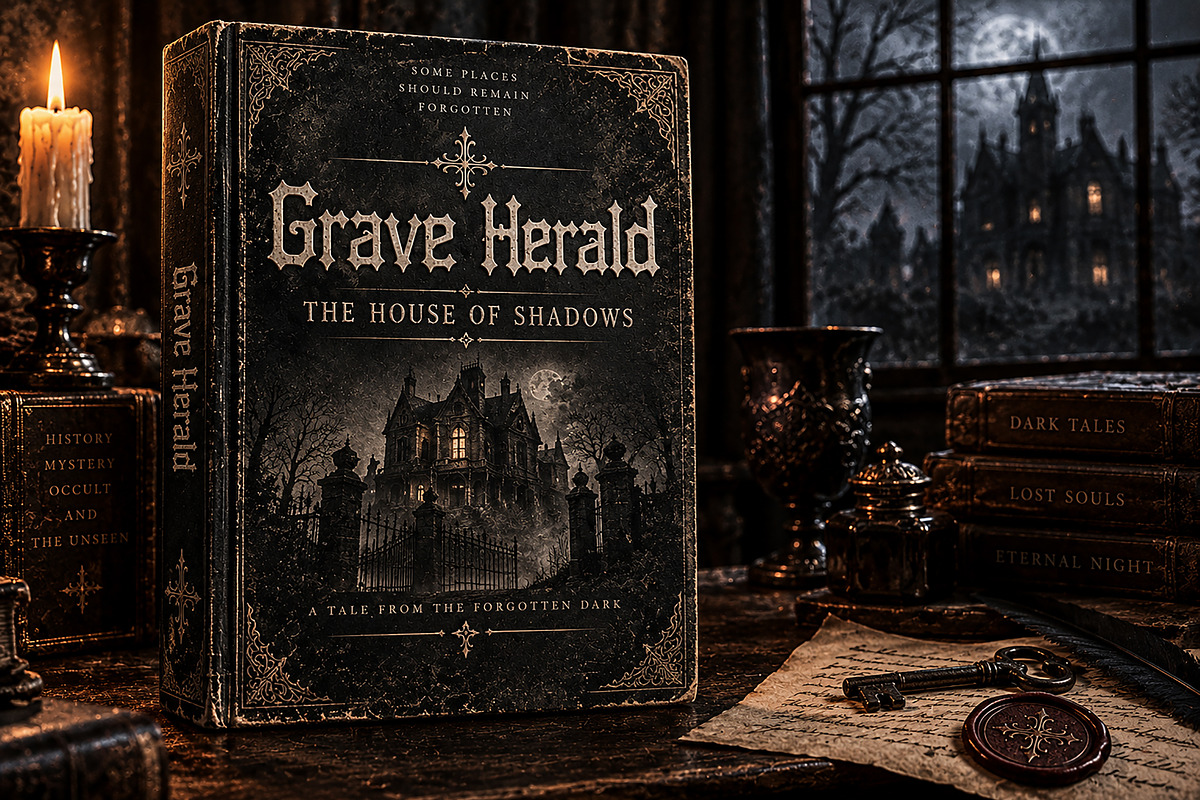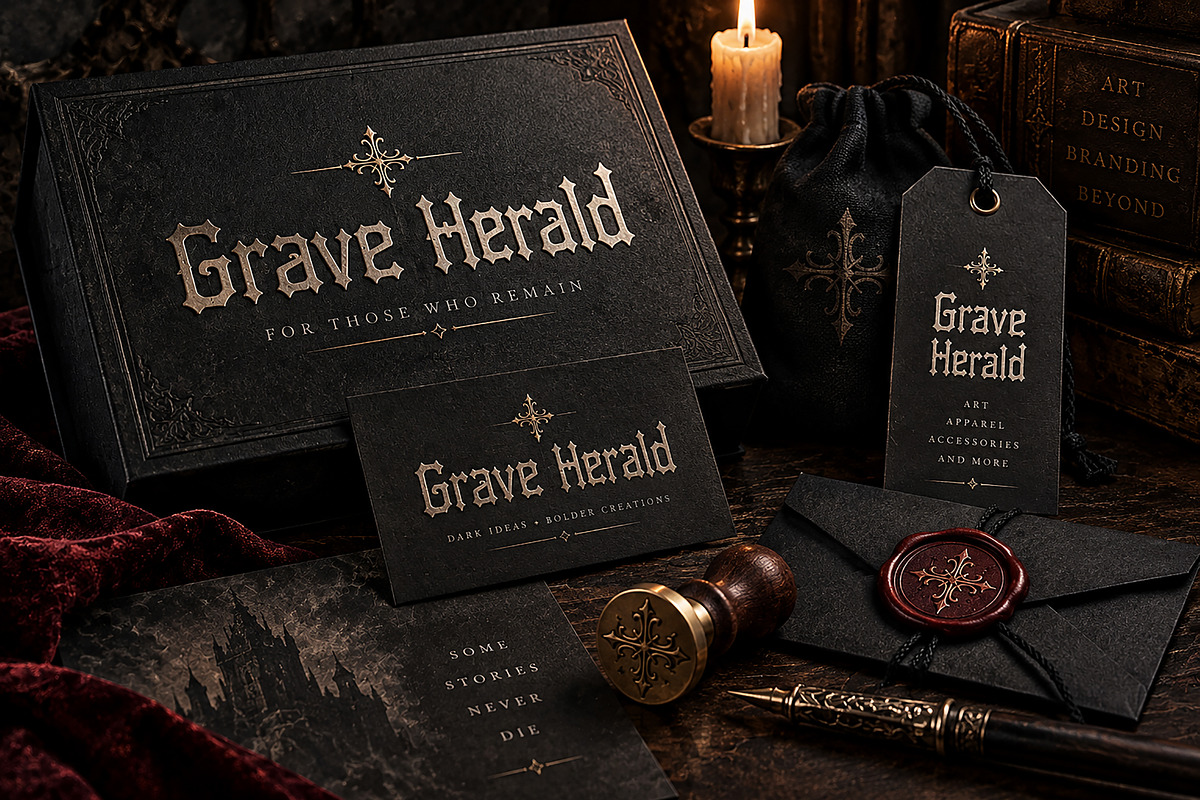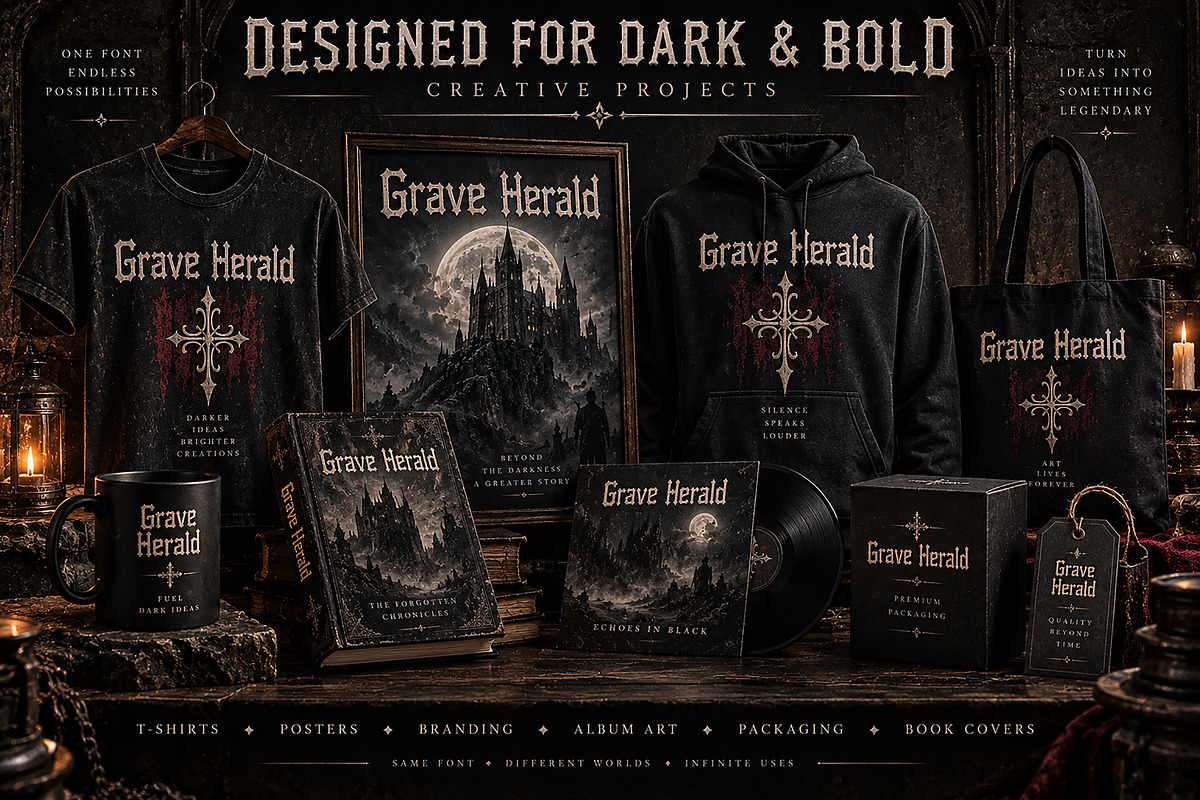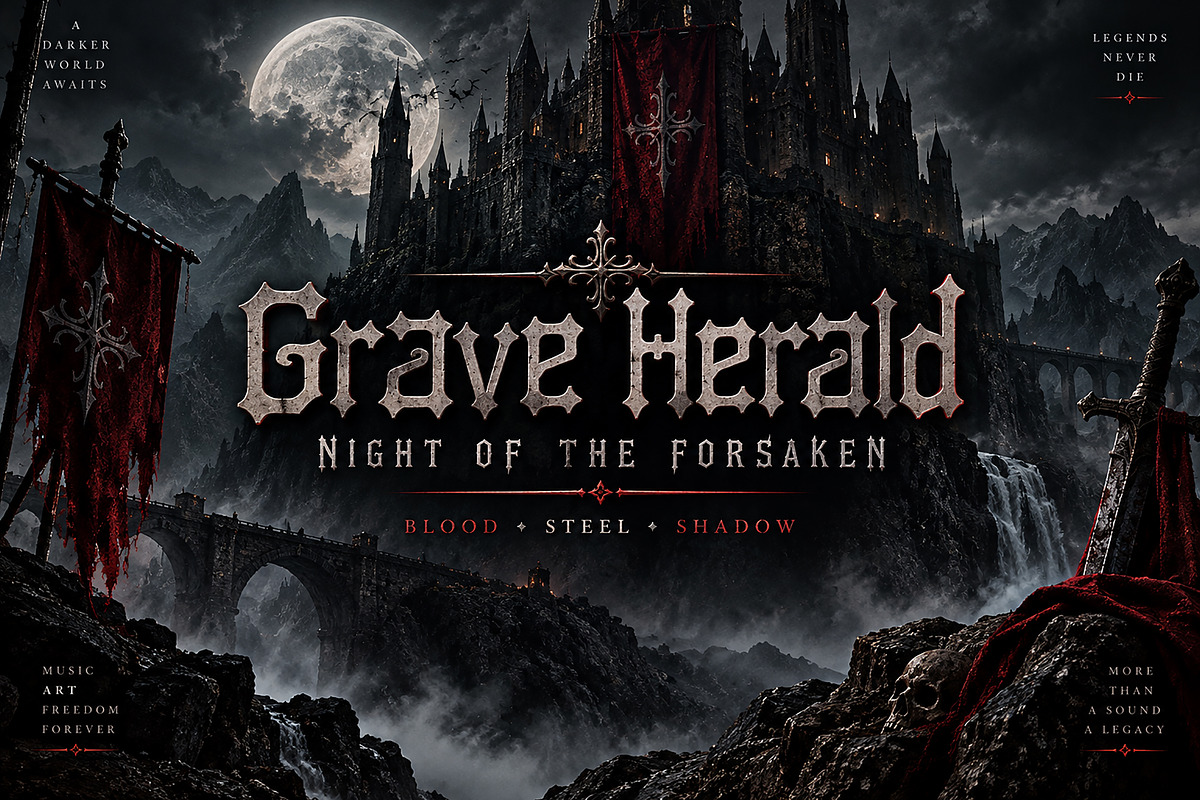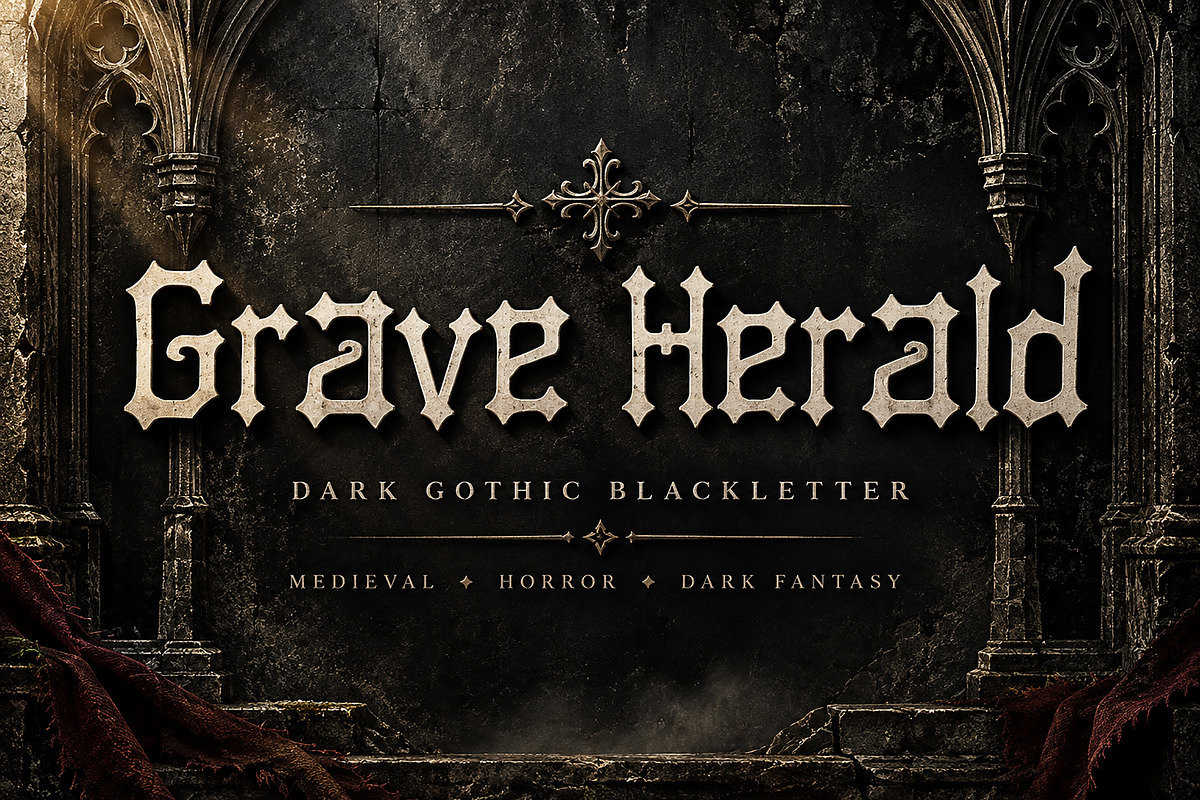
Grave Herald
Grave Herald is a bold and dramatic Dark Gothic Blackletter font inspired by medieval typography, ancient manuscripts, haunted castles, and dark fantasy aesthetics. Its sharp, ornamental letterforms create a powerful and mysterious visual style, making it an excellent choice for designs that need a strong gothic and historical atmosphere.
Perfect for gothic branding, horror artwork, dark fantasy projects, heavy metal graphics, album covers, posters, book covers, apparel, packaging, labels, tattoos, logos, and editorial designs.
Grave Herald is designed to make your typography stand out with an authentic medieval blackletter character while maintaining a strong visual presence across both large display designs and branding applications.
Gothic & Dark Branding
Horror & Halloween Designs
Dark Fantasy Artwork
Heavy Metal & Band Graphics
Album & Music Covers
Book & Novel Covers
Movie & Event Posters
T-Shirt & Hoodie Designs
Logos & Brand Identity
Packaging & Product Labels
Tattoo & Streetwear Designs
Medieval & Historical Projects
Editorial & Promotional Artwork
Bring a darker, bolder, medieval atmosphere to your next creative project with Grave Herald.